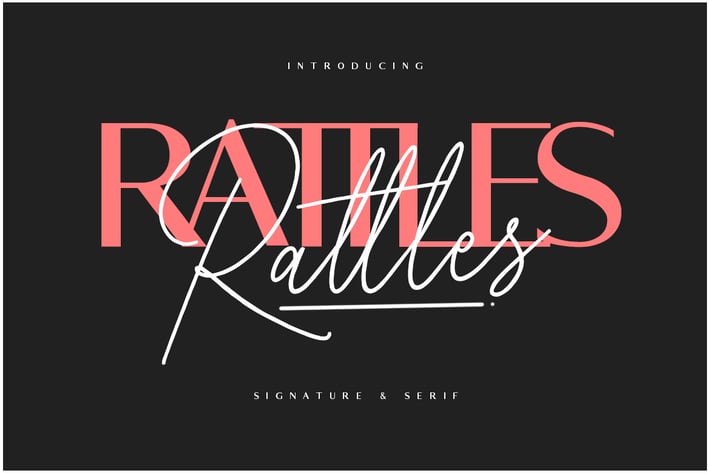
Rattles Signature Font Duo
Give your designs an authentic handcrafted feel. "Rattles" is perfectly suited to signature, stationery, logo, typography quotes, magazine or book cover, website header, clothing, branding, packaging design and more. Include Ligatures "ll, rr, ss, oo, mm, nn, tt"